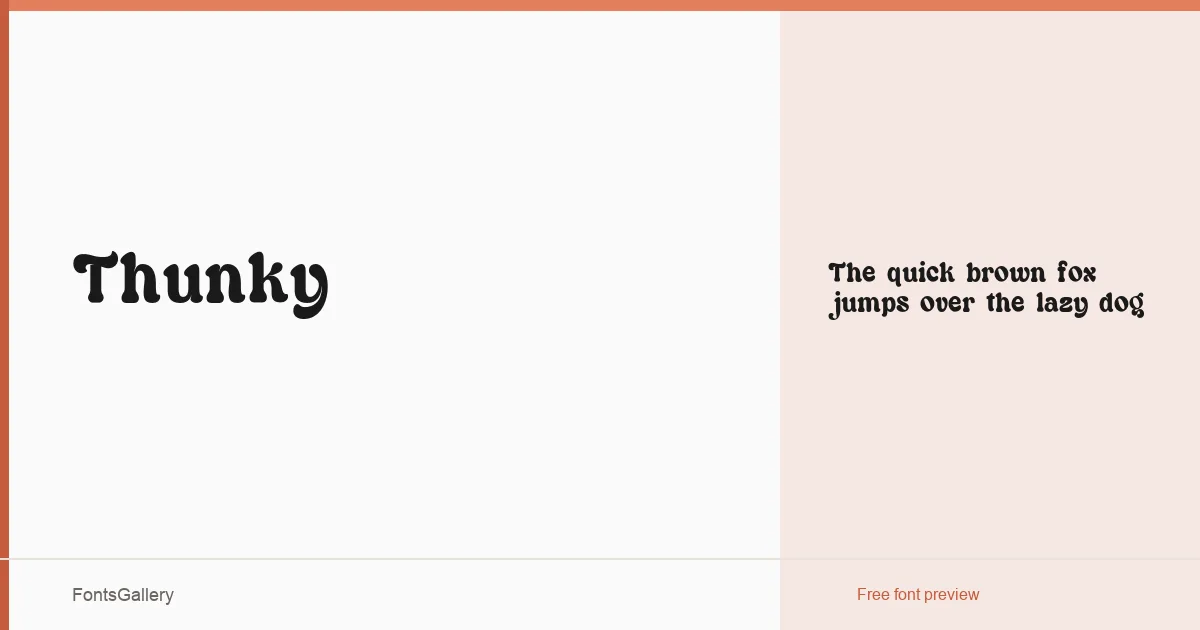
About Thunky Font
Thunky is a bold, playful serif typeface crafted by Jamaludin Achmad Sahestya Dharma under Pandeka Studio. It blends vintage charm with classic structure, making it a distinctive and characterful display font. Its confident personality sets it apart in any design project that calls for visual impact.
Thunky's letterforms carry a bold, classic serif construction infused with a playful vintage sensibility. The characters strike a balance between timeless typographic tradition and expressive, eye-catching energy. This combination gives the typeface a retro yet lively quality that feels both familiar and fresh.
Thunky is best suited for high-impact applications such as logos, posters, branding materials, magazine layouts, and T-shirt designs where bold visual presence is key. Its vintage-meets-playful character makes it especially effective for headlines and display contexts that demand personality. It pairs beautifully with the clean neutrality of Helvetica or the complementary style of Ballmain for well-balanced typographic compositions.